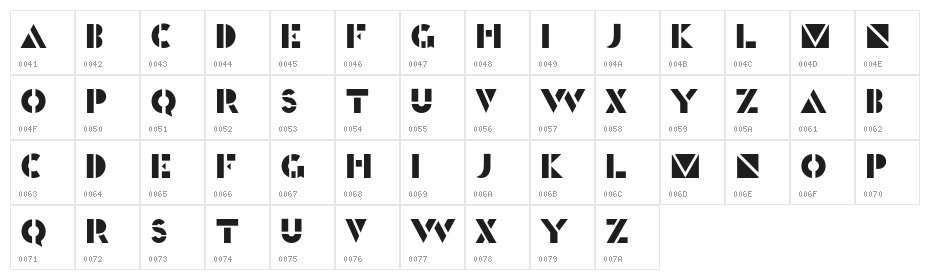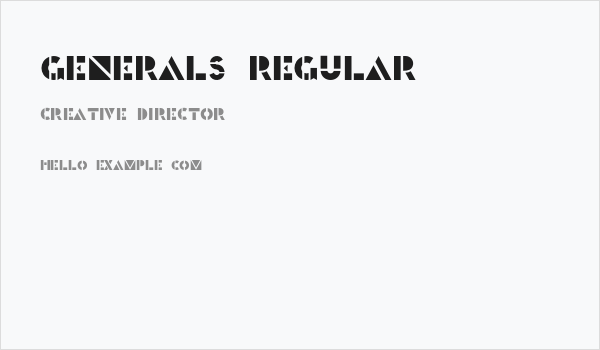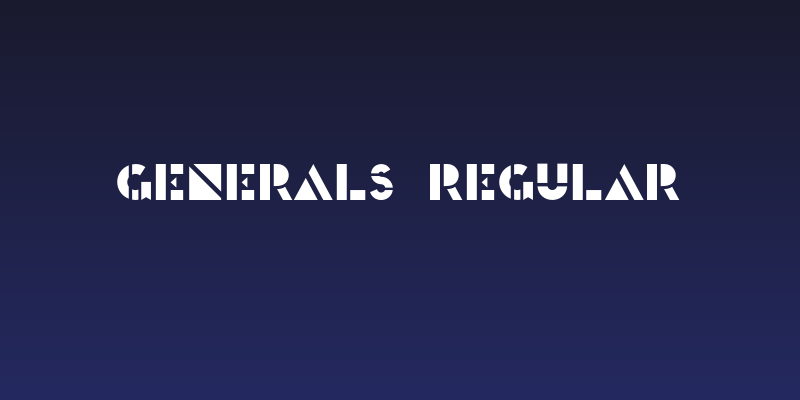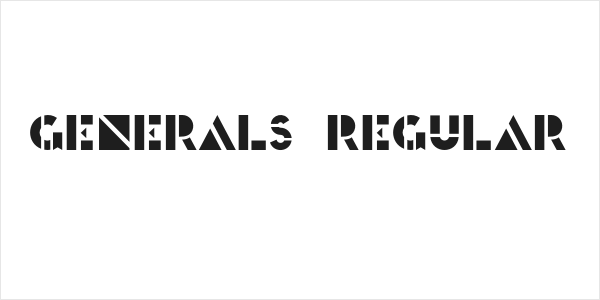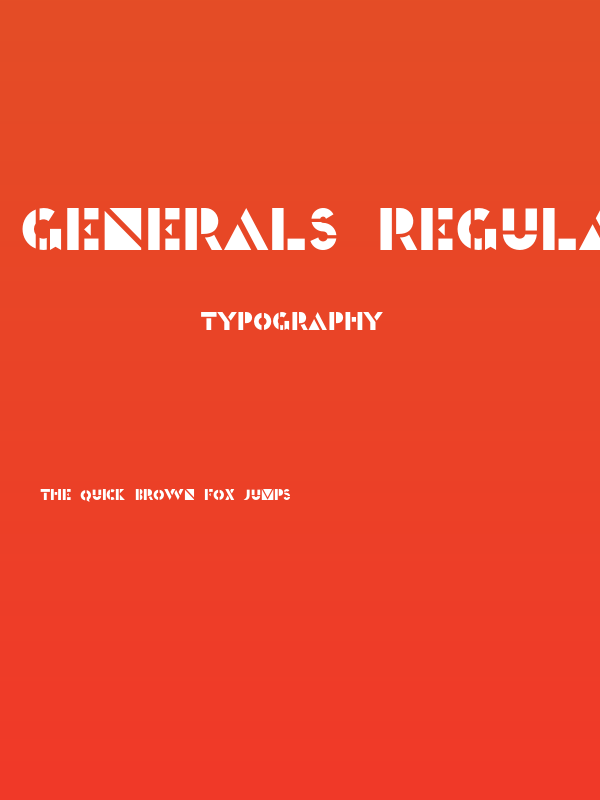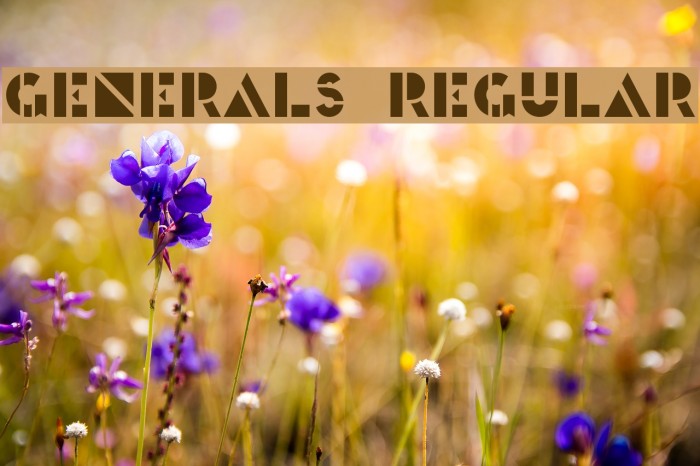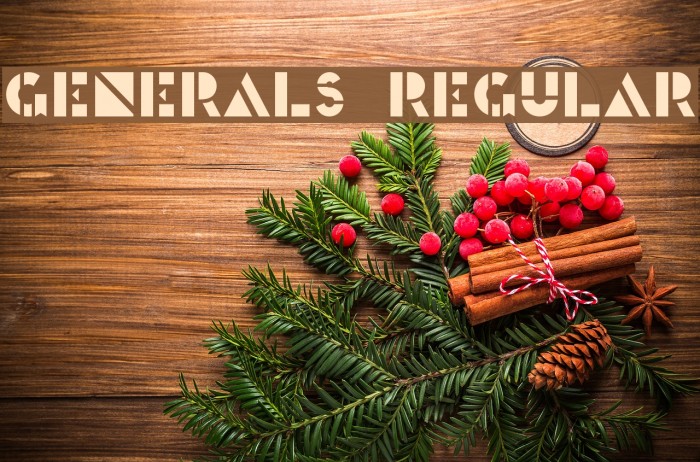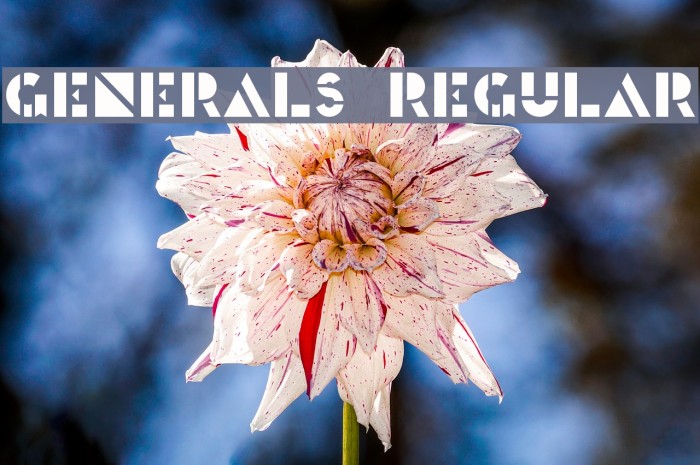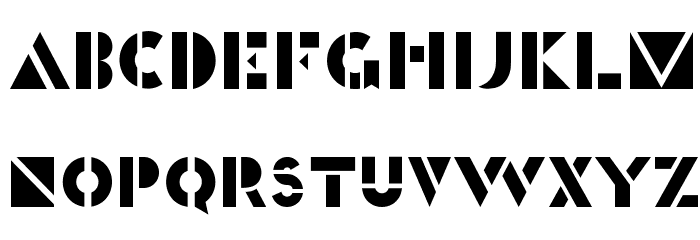
Generals Regular Font
Generals Regular Description
This font features a bold, geometric style with strong, angular shapes and a stencil-like appearance. Each character is constructed with solid, blocky forms, often incorporating triangular or rectangular cutouts that create a dynamic and industrial feel. The uppercase letters are particularly striking, with a uniform height and width that emphasize their boldness. The font's design is reminiscent of military or industrial themes, making it suitable for projects that require a strong, authoritative presence. Its unique cutout patterns add a decorative element, enhancing its visual impact.
| Overall Style | Industrial, Modern |
| Proposed Projects | Ideal for posters, logos, branding, and any design requiring a bold, industrial aesthetic. |